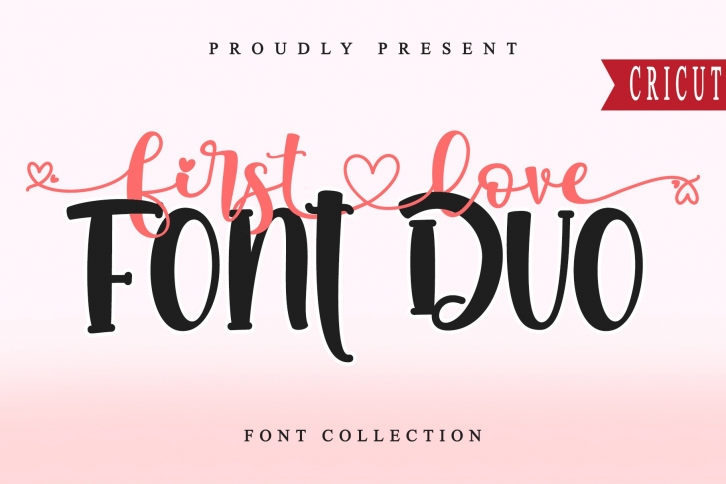
First Love Duo is a beautiful font that was designed by Thomas Aradea. It's a great choice for designers and creatives who need such a font. It was released on April 29, 2021 and the file size is 21.74 MB. First Love Duo may give a more youthful, expressive and casual look to your project. It is a very beautiful, refined, elegant, and high-quality font.